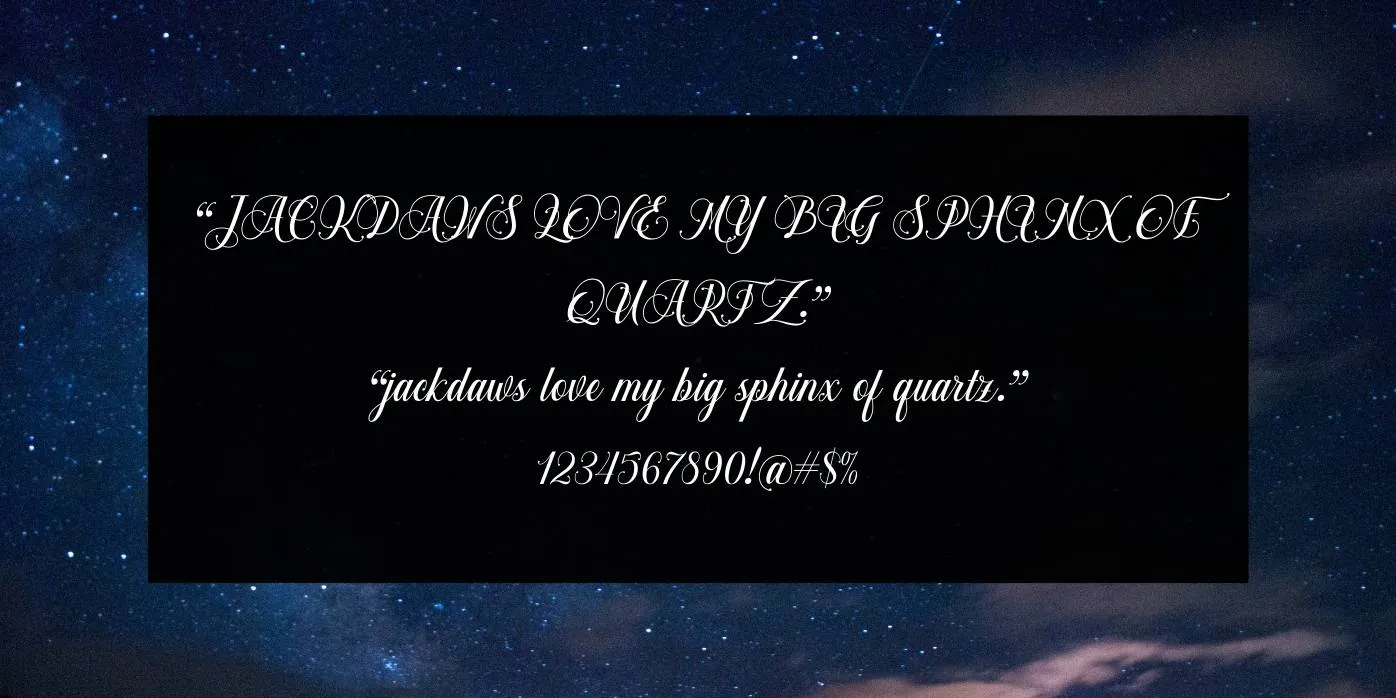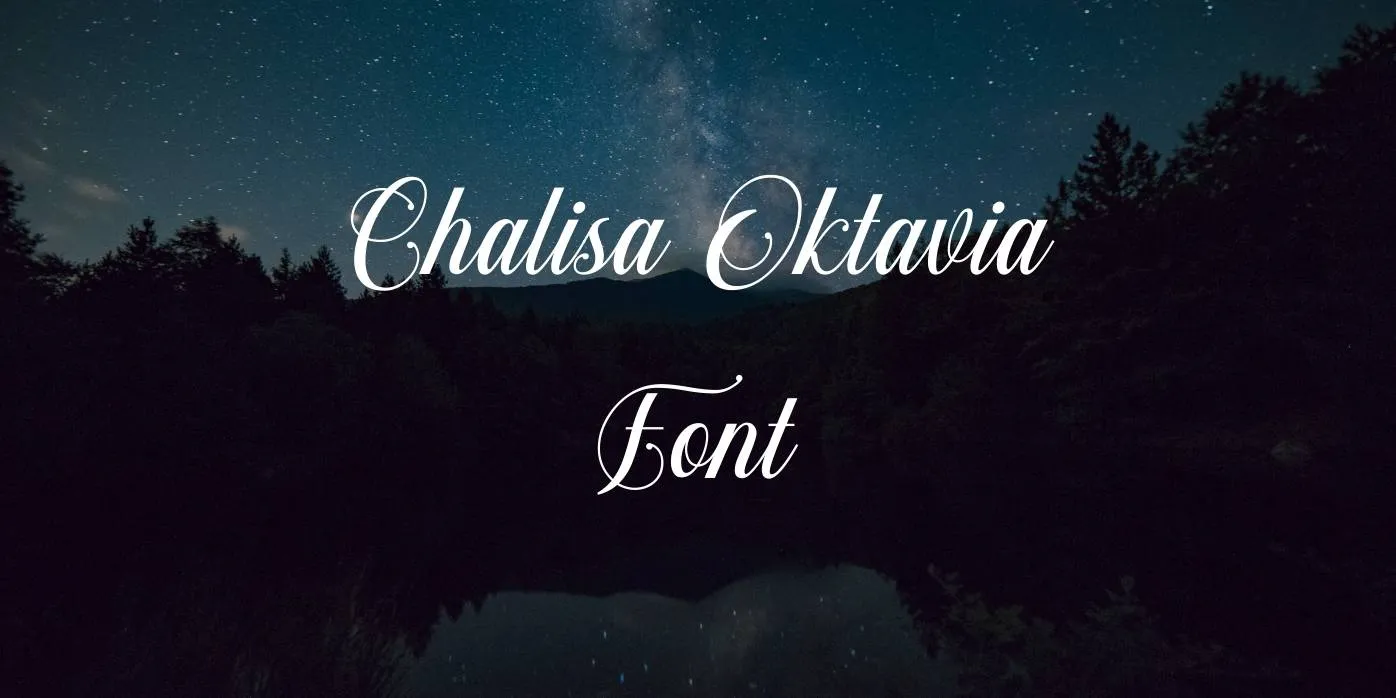
Chalisa Oktavia Font
Chalisa Oktavia Font looks like the calligraphy texture family that was designed by a famous typographic designer 7NTypes. It contains 288 glyphs and 2048 units per em. Its weight and width are medium (normal).  It is a series of Chalisa scripts that is famous for calligraphy in Indonesia. This font name was inspired by the city of Indonesia named Oktavia. It has many elements of characters, small letters, and capital letters. numbers.
punctuations, and special characters. This font is a very nice, elegant, and attractive font. It also provides the facility of an online generator tool which makes your text look decorative immediately. It contains a thick bold outline form and the hairlines are thin in a loop which gives it a very unique look.